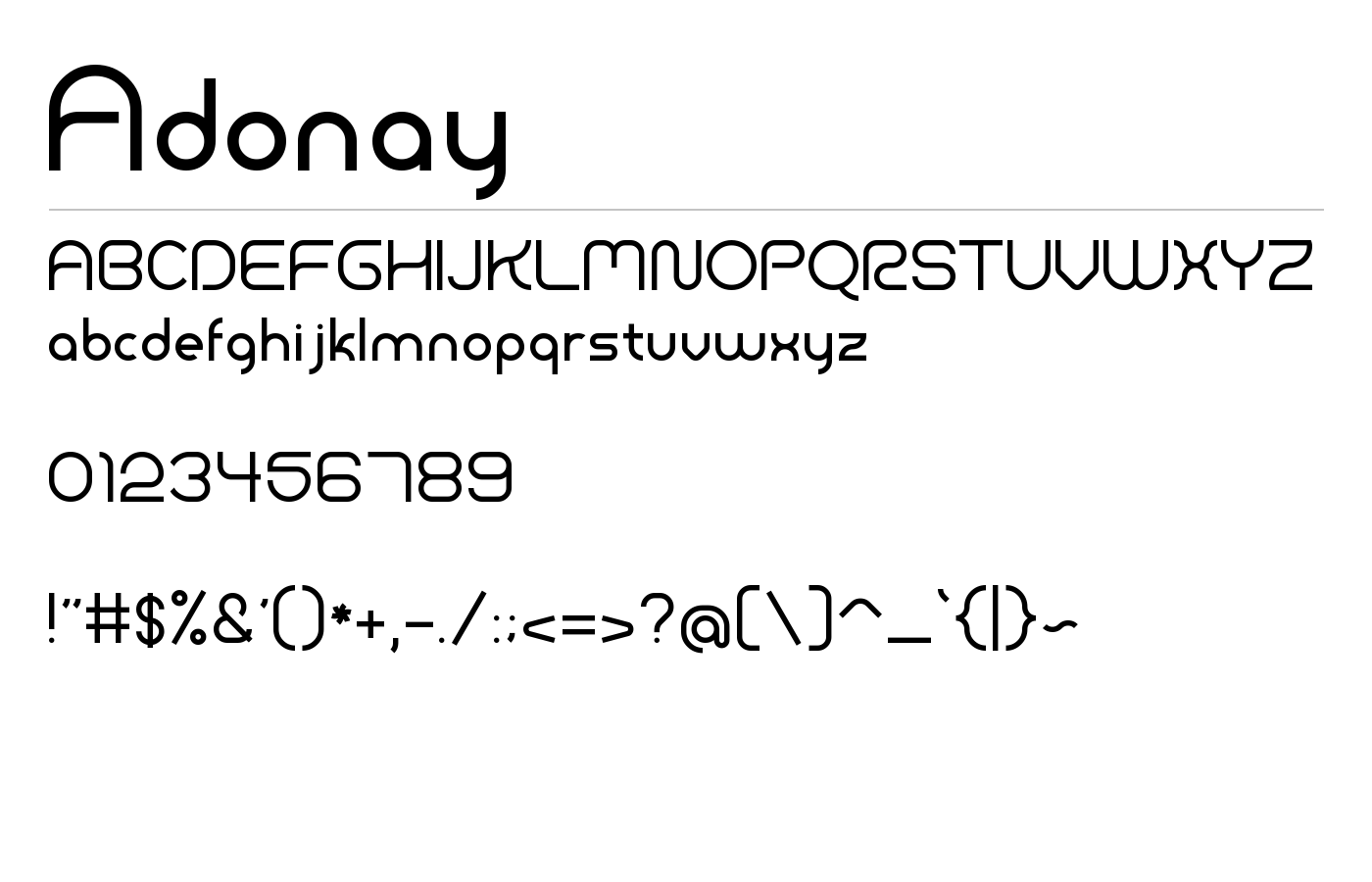
Adonay is a modern, geometric sans serif font with a clean, minimalist design that features smooth rounded edges and a consistent stroke weight. Its letterforms have a futuristic yet approachable feel, making it ideal for branding, tech projects, and contemporary editorial work where a sleek, stylish appearance is desired. With its distinctive shapes and good readability, Adonay works well for headlines, logos, and digital interfaces seeking a fresh, innovative vibe.
Adonay Font
About Adonay Font